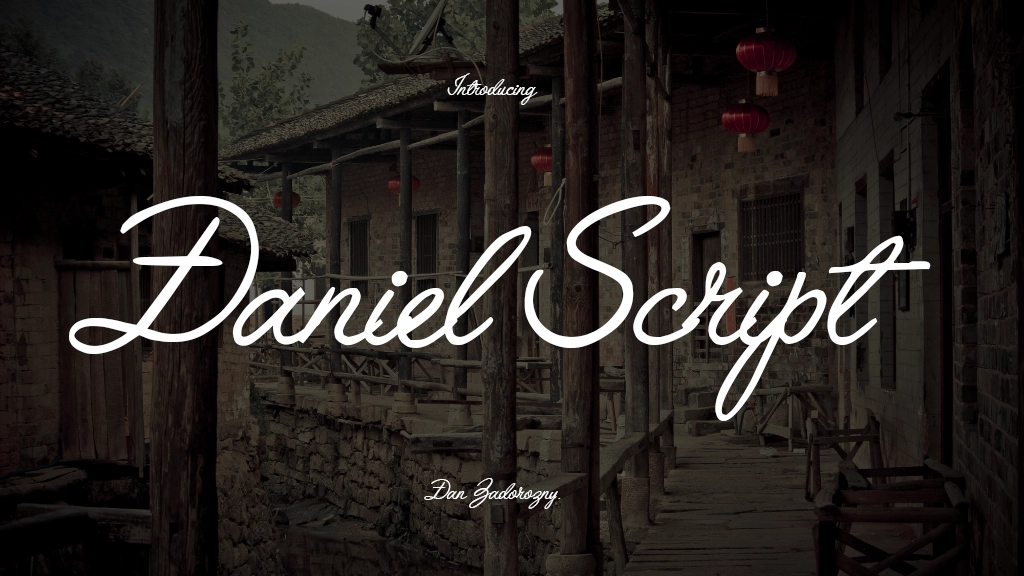
Daniel Script is a great font for any design that needs to be fun and engaging. It is a Regular style font, which means that it is not bold or italicized.